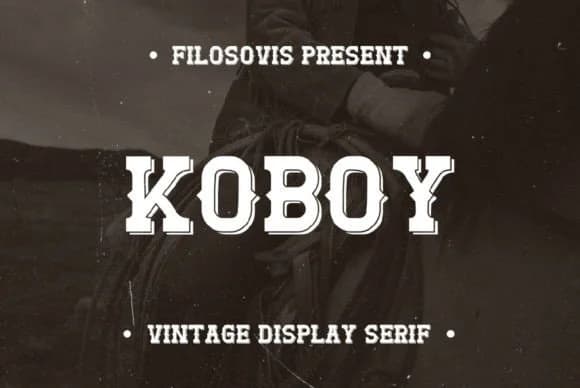
This font radiates confidence and genuine Western grit. Koboy, designed by filosovis.co, is a slab-serif typeface that channels authentic frontier character through bold, chunky letterforms and unapologetic line weight throughout the entire alphabet. The letters carry serious personality without slipping into caricature or theme-park pastiche, making it feel grounded in real design work.
The sheer weight and solidity of these forms make them ideal for vintage music and entertainment logos, embroidered apparel labels and patches, Western-themed wedding invitations and stationery suites, bold event signage for historic saloon entrances, rodeo posters, and promotional materials for outdoor recreation brands. You can set this tight on product tags where it commands instant attention, or let the letterforms breathe across storefront signs and large-format prints where scale and space amplify its impact. Both the uppercase and lowercase sets maintain that same distinctive character, working equally well for short headlines, logotypes, or display settings that call for real presence and impact.
Pair Koboy with a neutral, refined sans-serif like Open Sans or Montserrat for body copy and supporting text. That contrast lets Koboy own the headlines and brand identity while keeping everything else readable and contemporary. Find it on Creative Fabrica when you're ready to add that authentic Western edge to your next project or campaign.
Koboy Font is a slab serif font that shines as a display or heading face. Pair it with a clean sans-serif or serif font for body text β the contrast creates a clear hierarchy while the two styles stay balanced and easy to read.